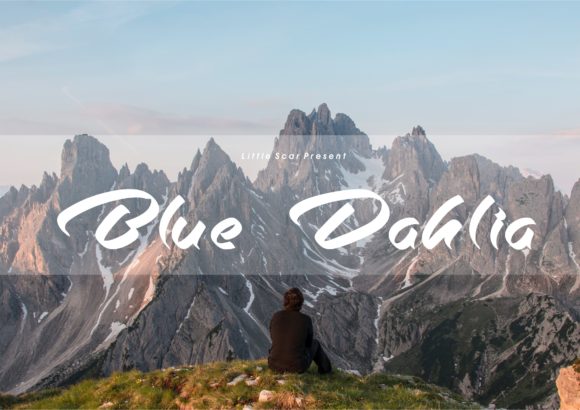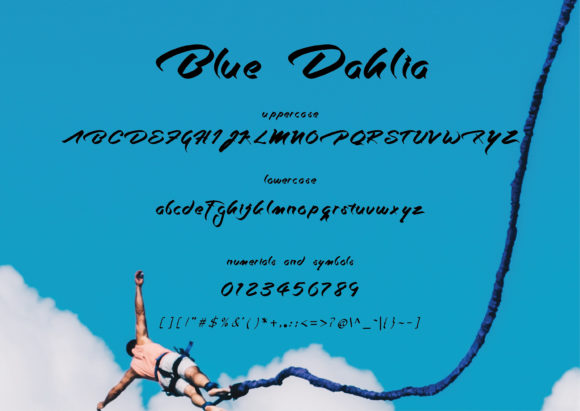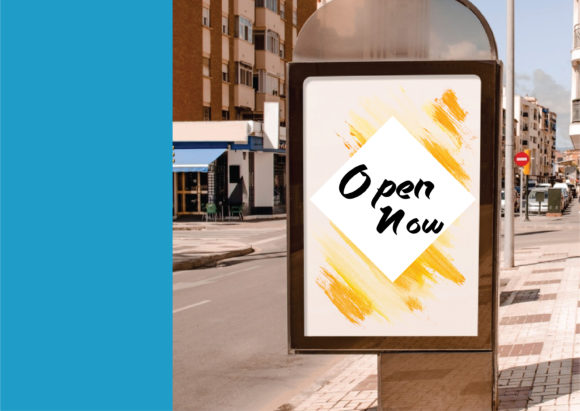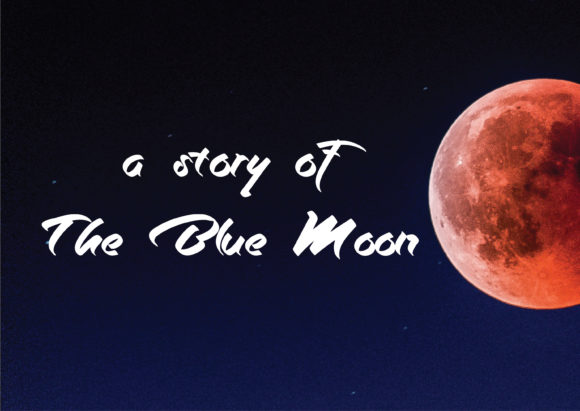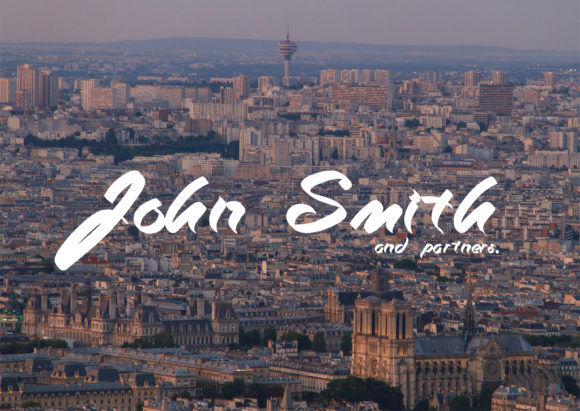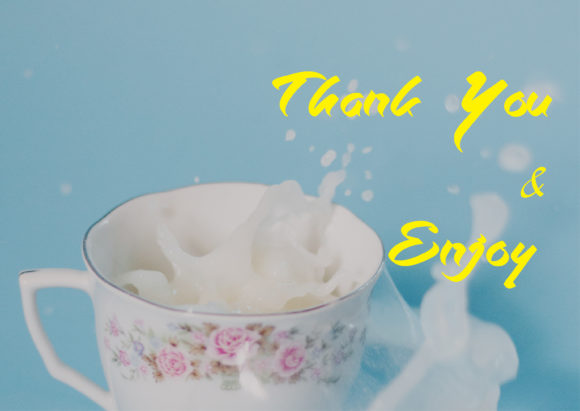
Blue Dahlia Font
About Blue Dahlia Font
Blue dahlia is a bold handwritten font with an authentic brush style. It’s the perfect font for adding a smart and personal feel to any design project.